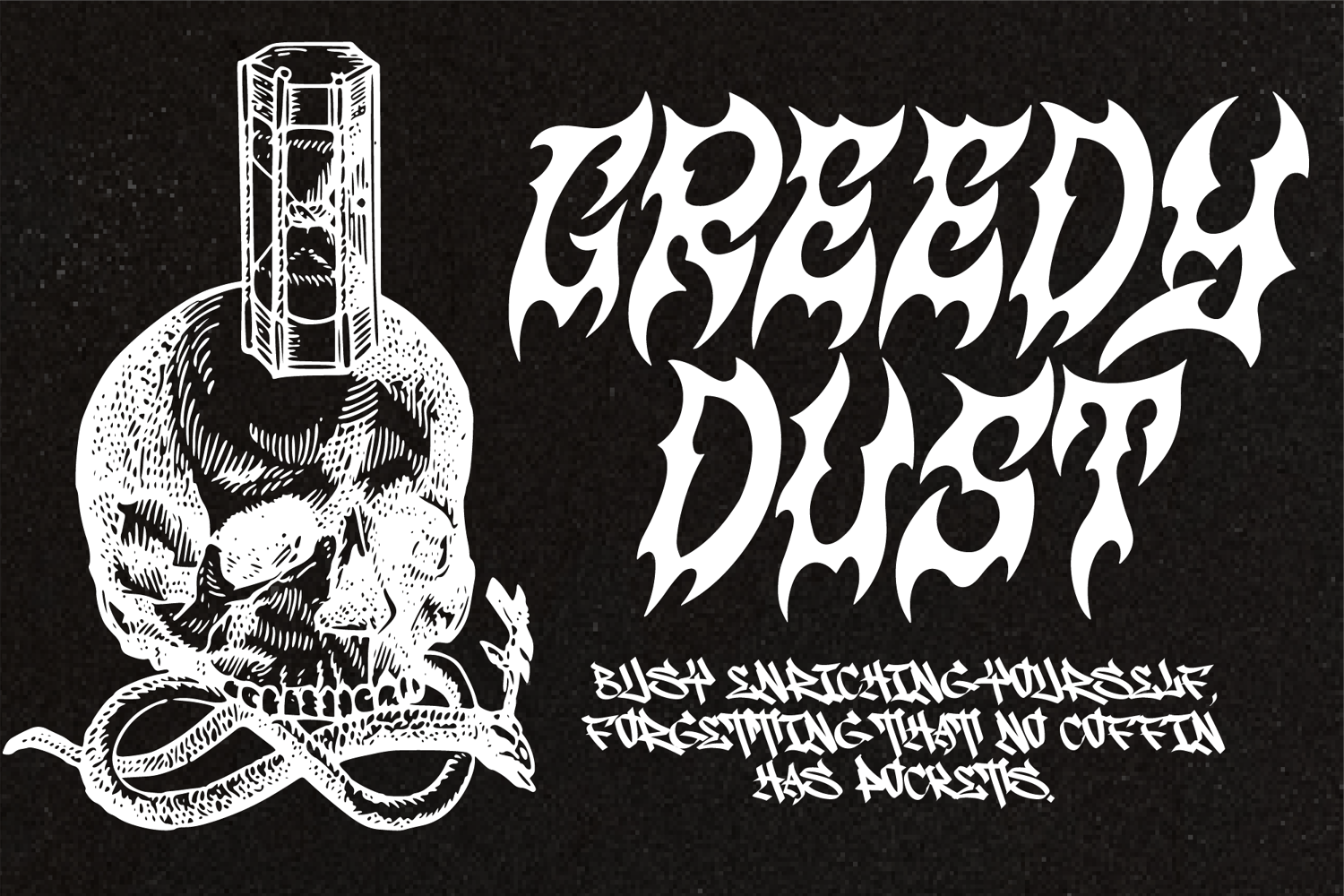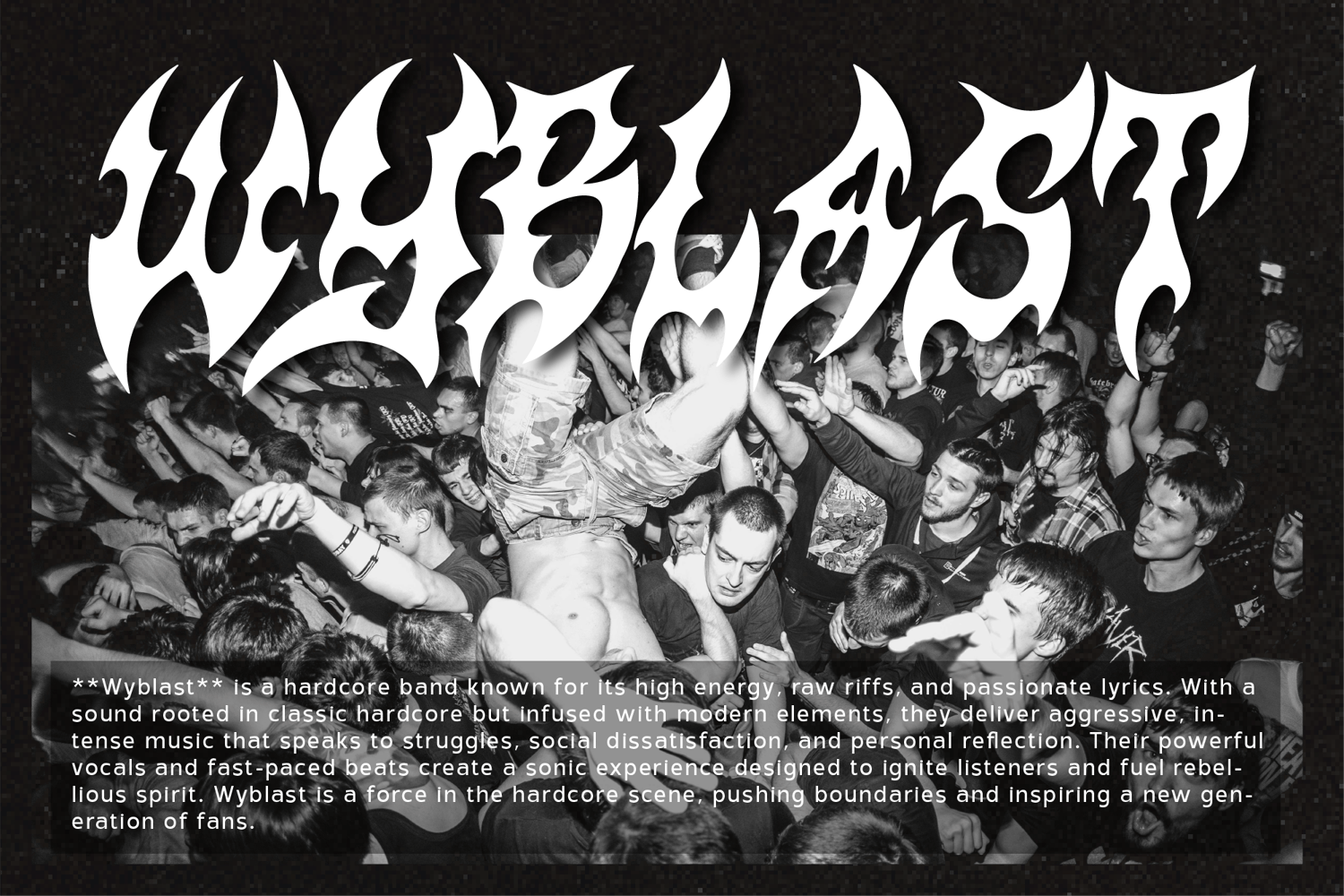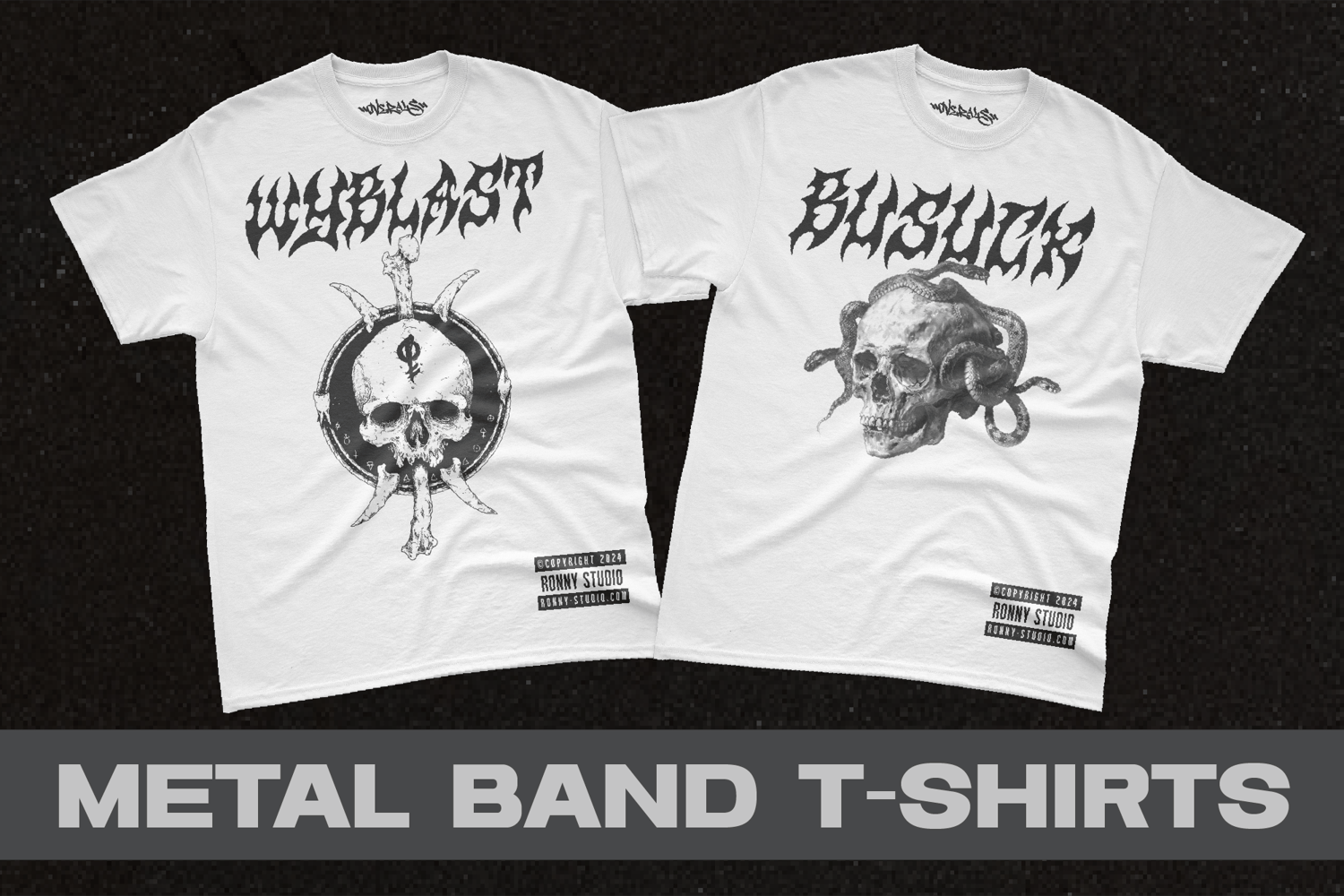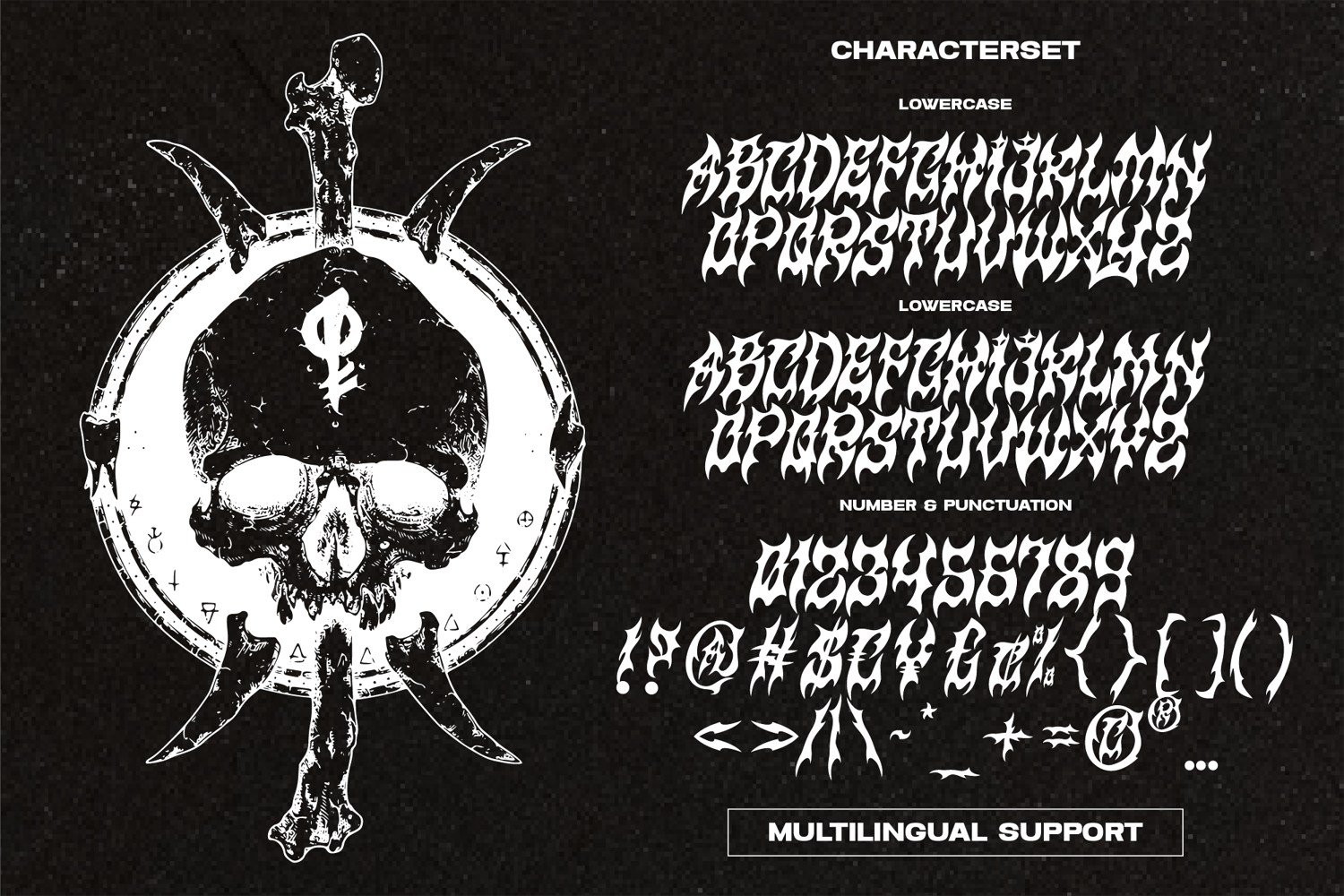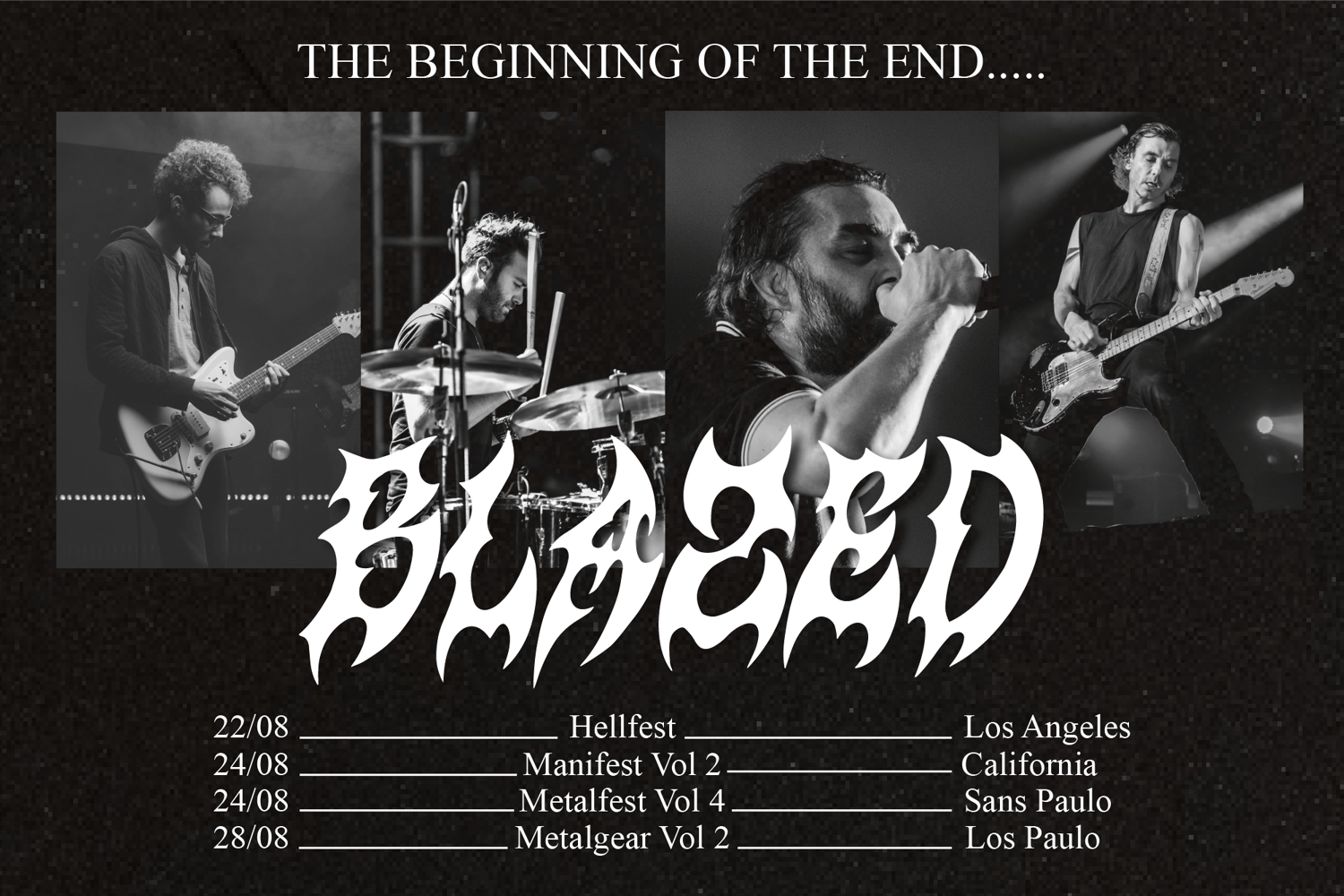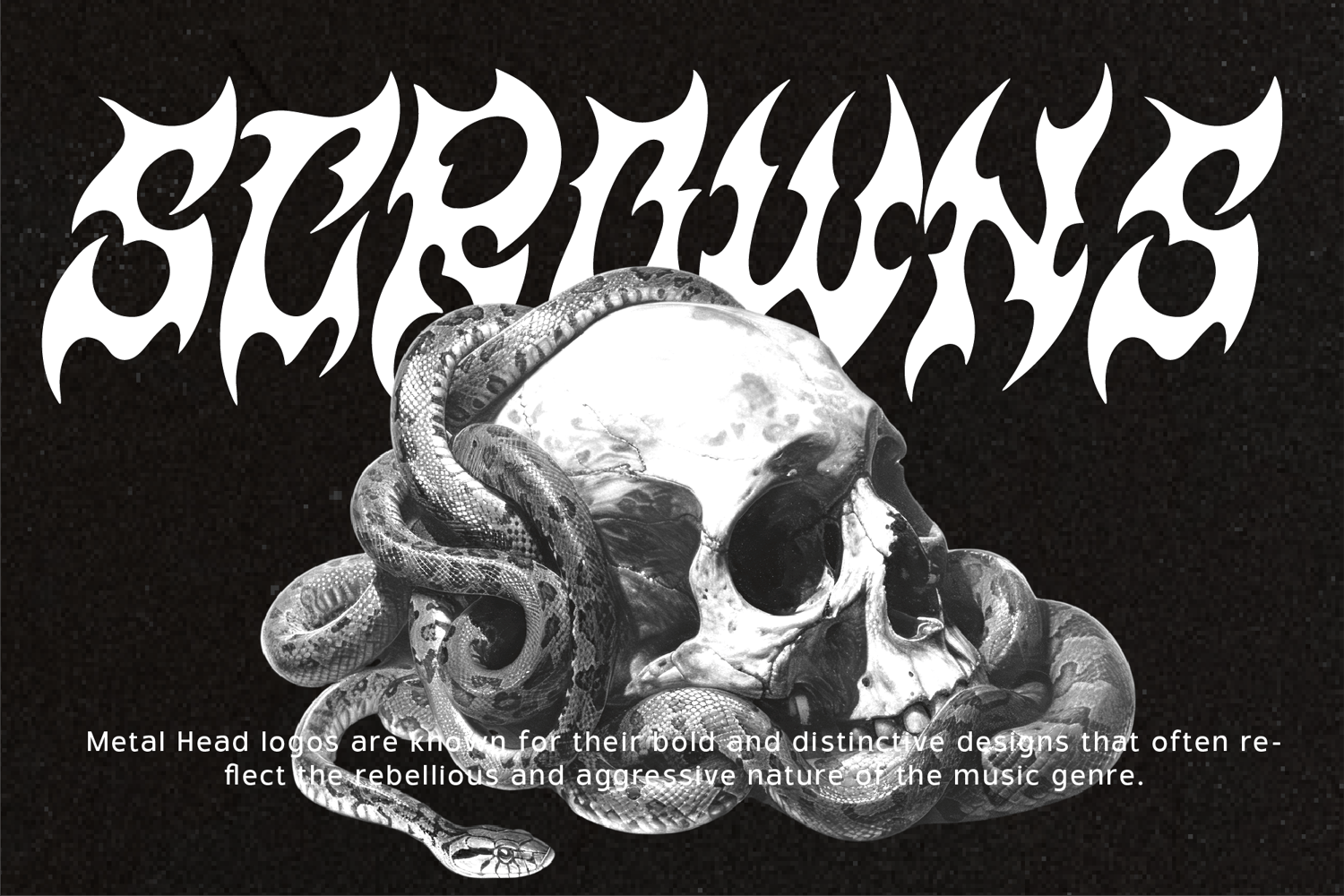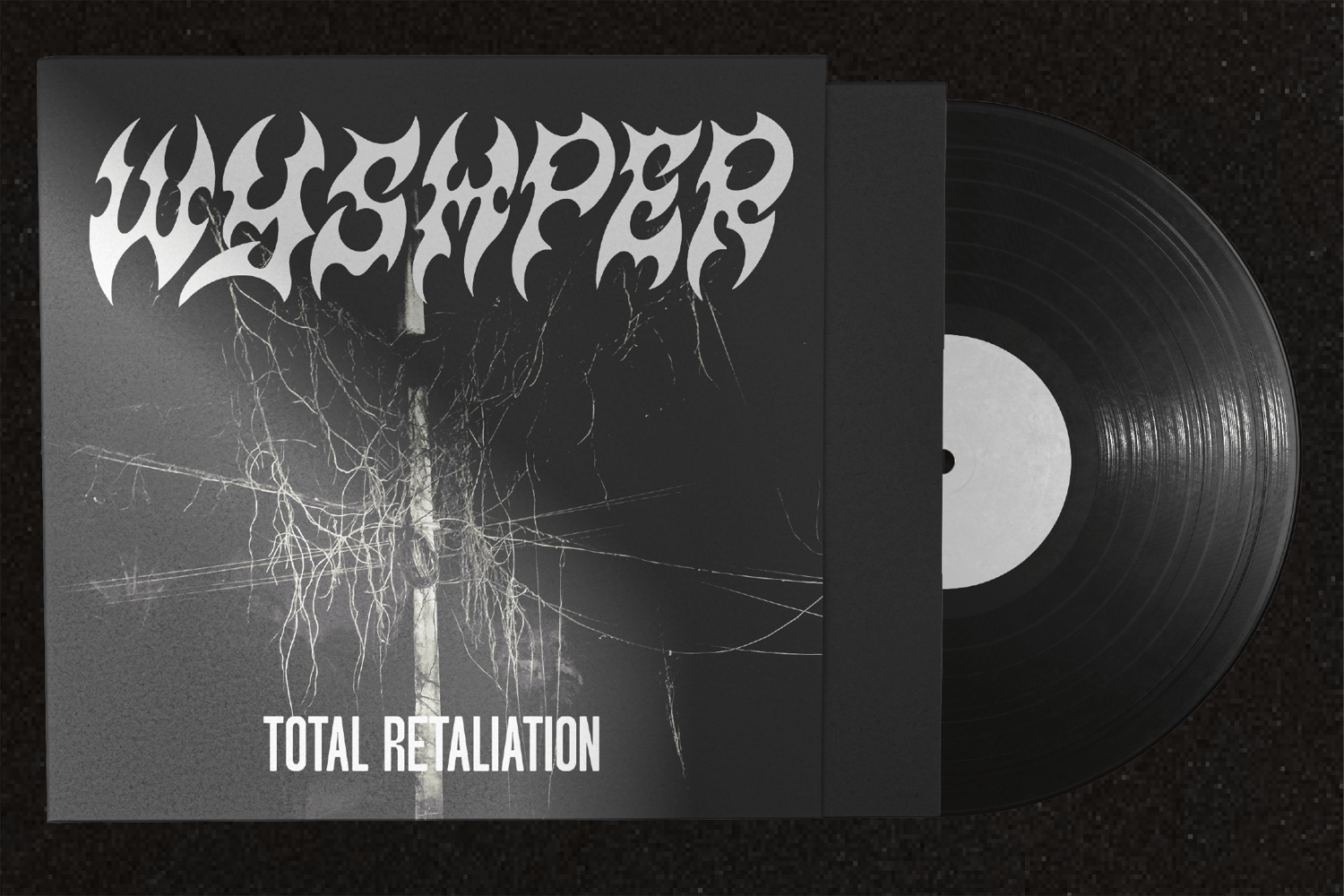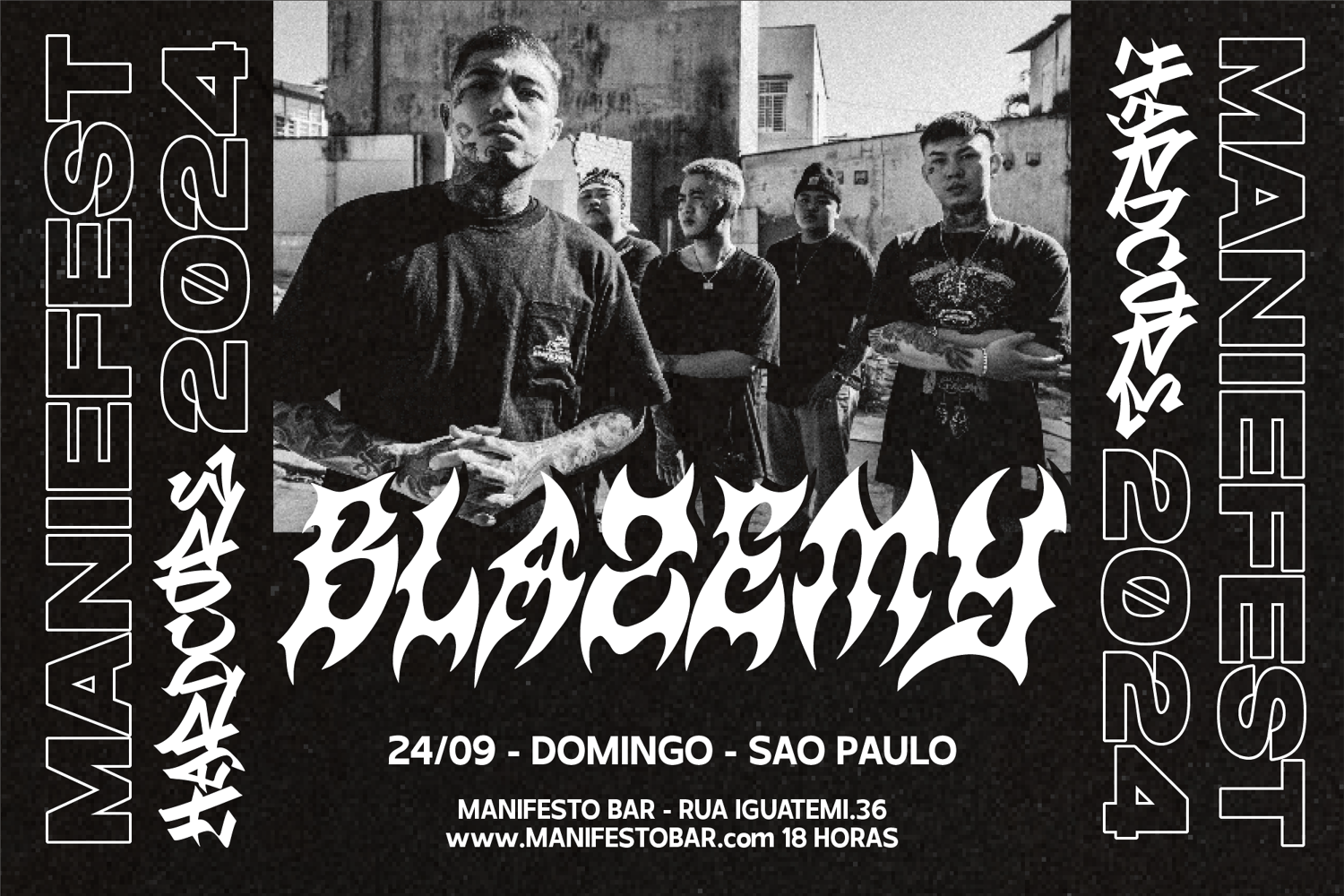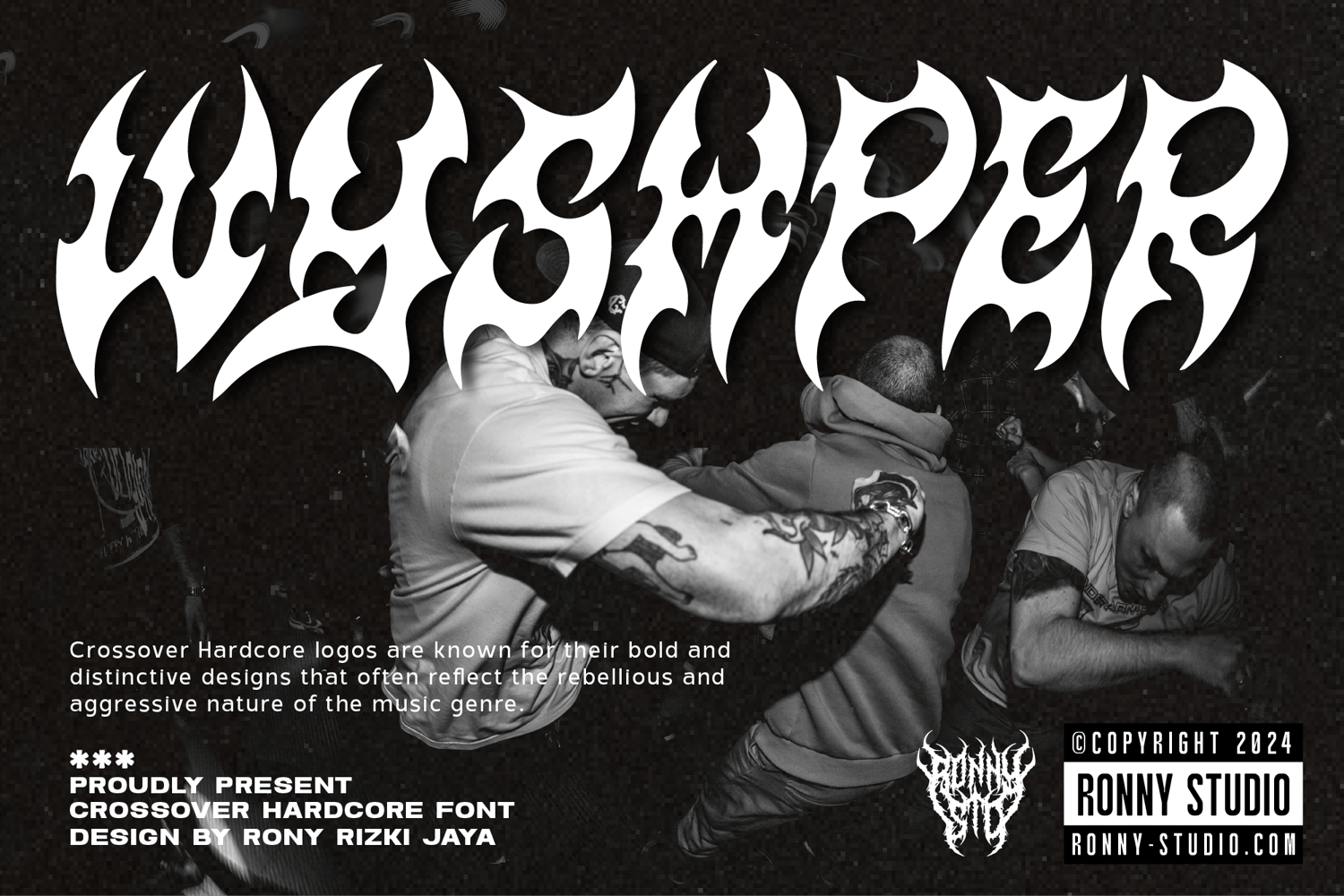
Wyshper Font is a cool alternative for you to create Underground band logos or anything else easily. Using effects in the font will liven up the font and it will look cooler and fiercer. This font has a strong, aggressive and bold look, reflecting the aesthetics of the metal music genre itself. This font is very suitable for band logos, poster designs, t-shirt designs, jackets, hats, beanies, etc